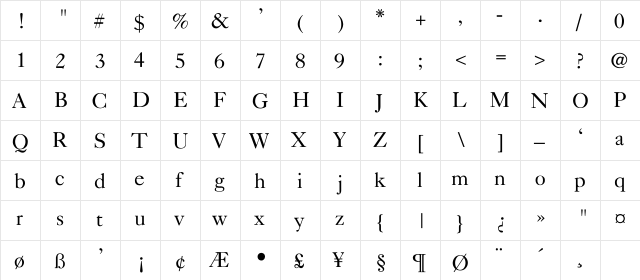
Caslon-Light Regular
Design Context for Caslon-Light Typeface
Caslon-Light takes a measured approach to typography — its balanced proportions and neutral character make it a reliable workhorse for both digital and print work. Its slender proportions lend an understated elegance to any composition.
Pro Tip: Use Caslon-Light in both headline and body roles to test its range before committing to a single application.